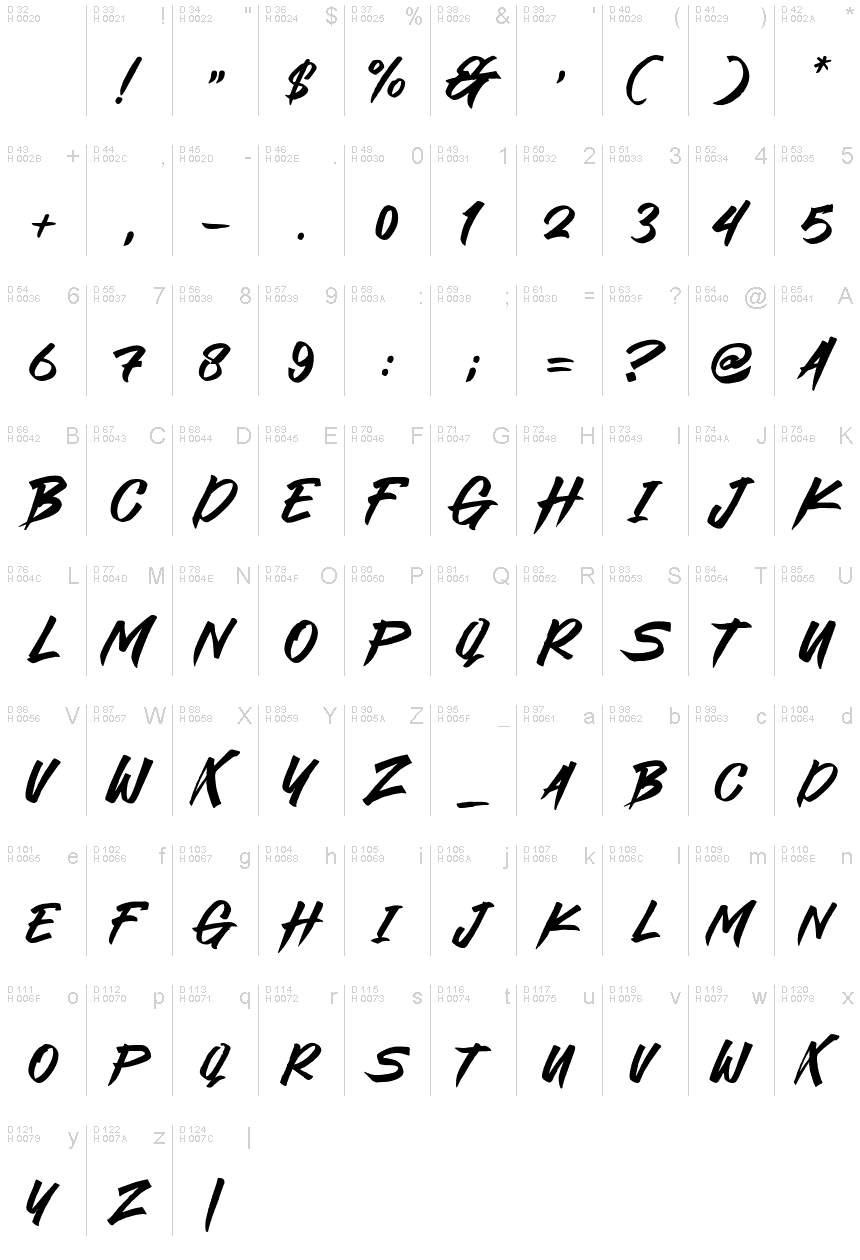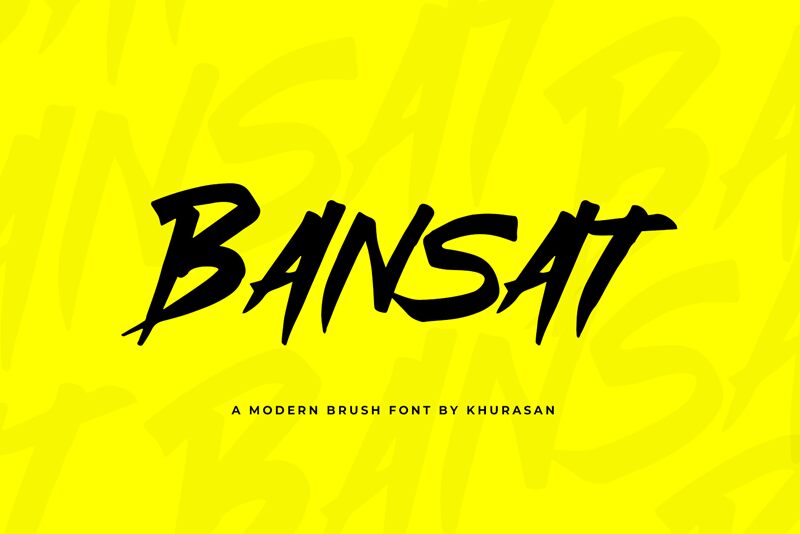
Bansat
Bansat, designed by Khurasan, is a striking modern brush font with a semi-bold weight. This versatile typeface is ideal for a wide range of design projects.
Its bold and expressive strokes make it perfect for eye-catching posters and attention-grabbing logos. With its unique style, Bansat adds flair to magazine layouts and book covers, making them visually captivating. Additionally, this font shines in banners and other display materials, ensuring your message stands out from the crowd.